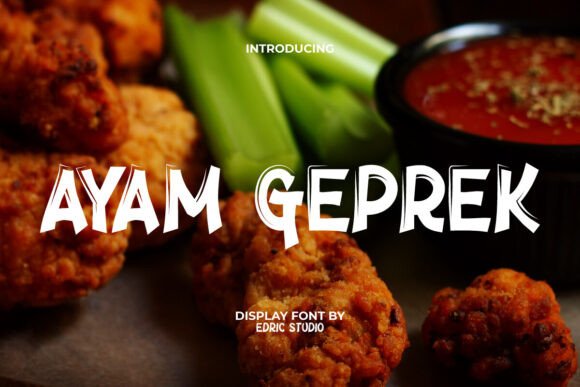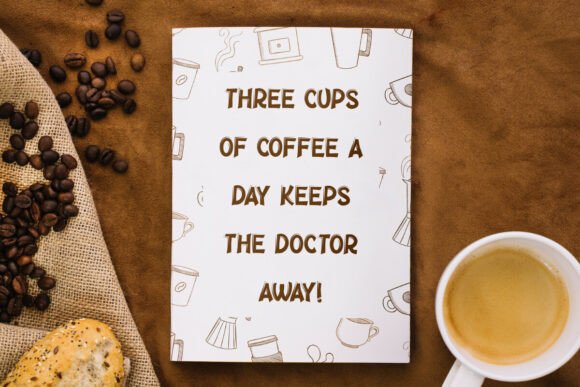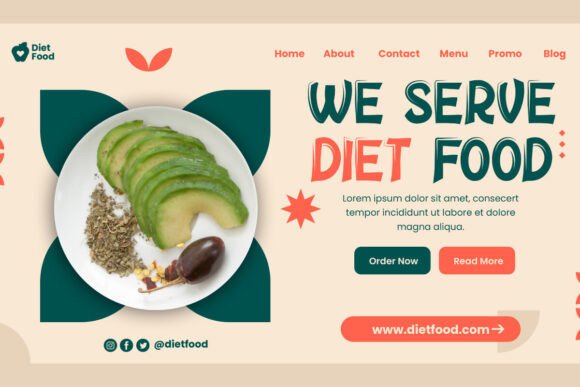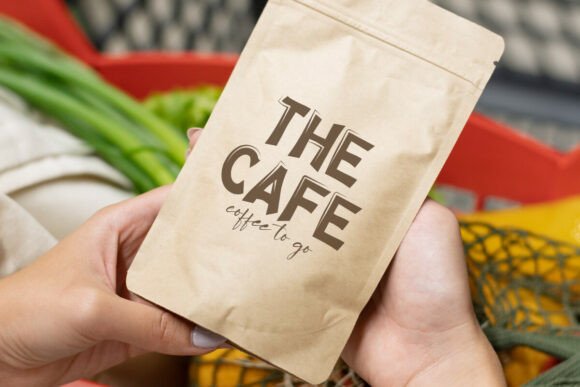
Ayam Geprek Font: A Unique Playful Display Font for Foodie Designs!
About the Ayam Geprek Font
Explore the possibilities with Ayam Geprek Font, a font that offers both beauty and functionality. Ayam Geprek is a unique playful foodies font with an attractive sketch style. You can see that from every angle the letters have a kind of subtle scribble that stands out. It will bring a different sensation to your design, such as apps, billboard, blogs, cover, flyer, header, logos, menu, packaging design, poster, product labels, screen print, signage, stationery, sticker, title, website, and much more.
Ayam Geprek’s playful sketch style makes it ideal for headlines, logos, short-form text on packaging, posters, and social media graphics where its unique character can shine. It’s also well-suited for branding projects aimed at a younger, more informal audience, particularly in the food and beverage industry. However, its less-than-optimal readability makes it unsuitable for body text or lengthy paragraphs, as well as user interfaces requiring high legibility.
Pairing Ayam Geprek effectively requires a complementary font to balance its informal energy. A clean sans-serif like Open Sans or Lato would provide a strong contrast and ensure readability in supporting text. For a more sophisticated look, consider pairing it with a classic serif font such as Garamond or Playfair Display.
The font’s overall personality is best described as friendly and informal, with a touch of boldness. Its hand-drawn aesthetic adds a sense of approachability and warmth, making it a great choice for projects that aim for a casual and inviting feel.
Ayam Geprek Font Usage Examples
Ayam Geprek Font Example